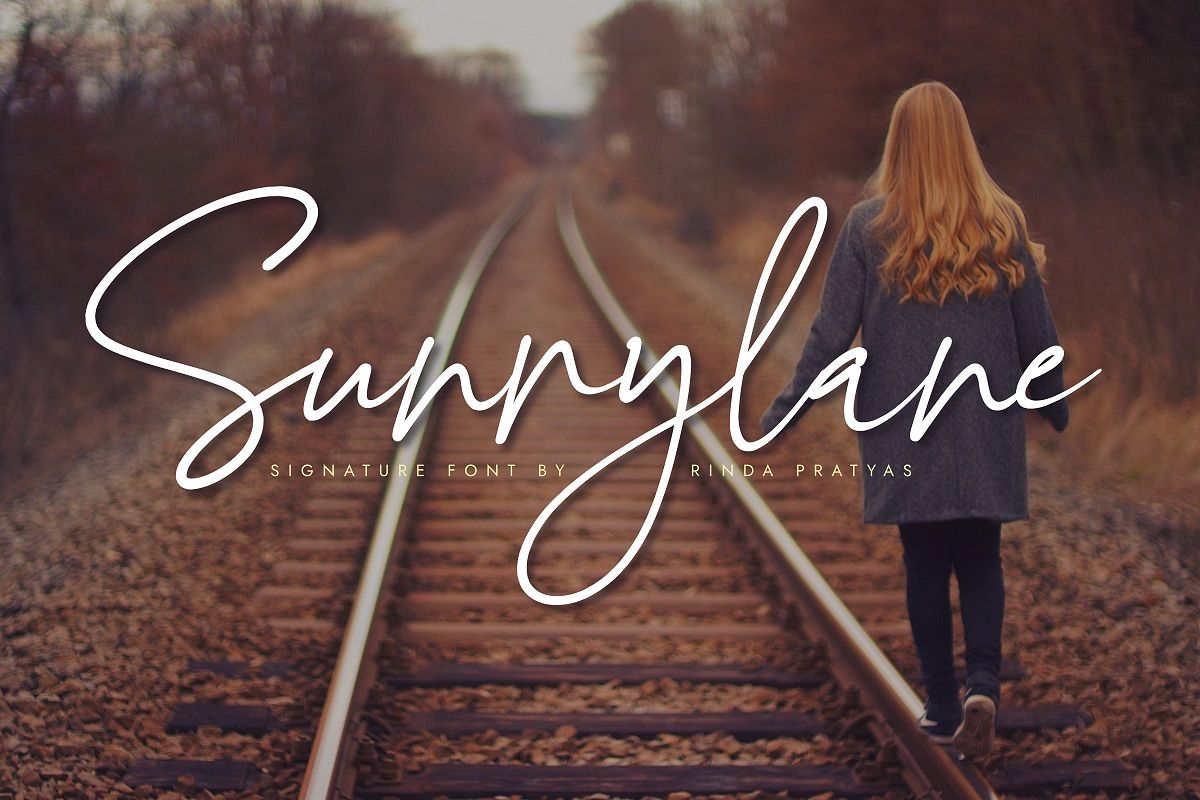
Sunnylane
Introducing my new font "Sunnylane" Classy script font!
This font is perfect for branding projects, quotes, signatures, logos, watermarks, and much more.